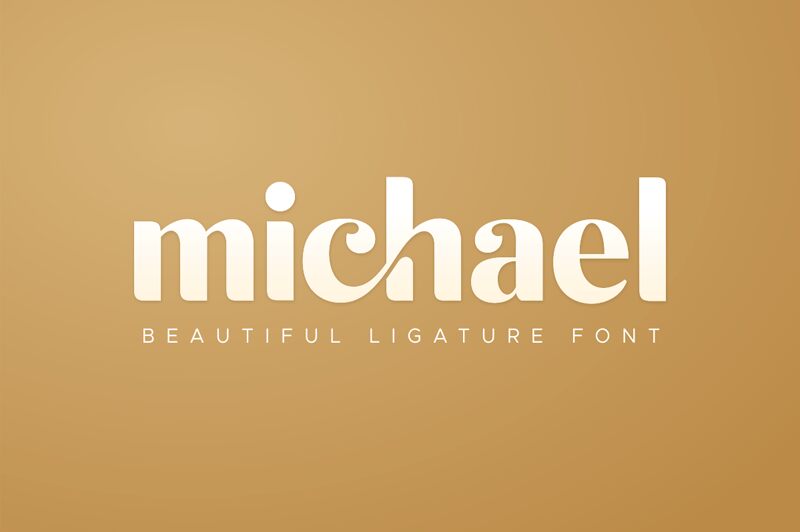
Michael font by Sensatype Studio embodies elegance and sophistication with its bold display style. This modern design carries a strong presence and charm with subtle hints drawing influence from traditional typography. A combination of inherent readability, defined edges, smooth curves, and versatile design gives it an utterly appealing look suitable for professional and general purposes.
Brake all audience engagement records across different online channels such as social media posts, digital marketing campaigns, YouTube video thumbnails, website titles, etc. Michael is absolutely free for branding projects related to music albums covers or community awareness campaigns. The font would give book titles on covers or the inside even more appeal while remaining great for invitations or posters in both print or digital formats.